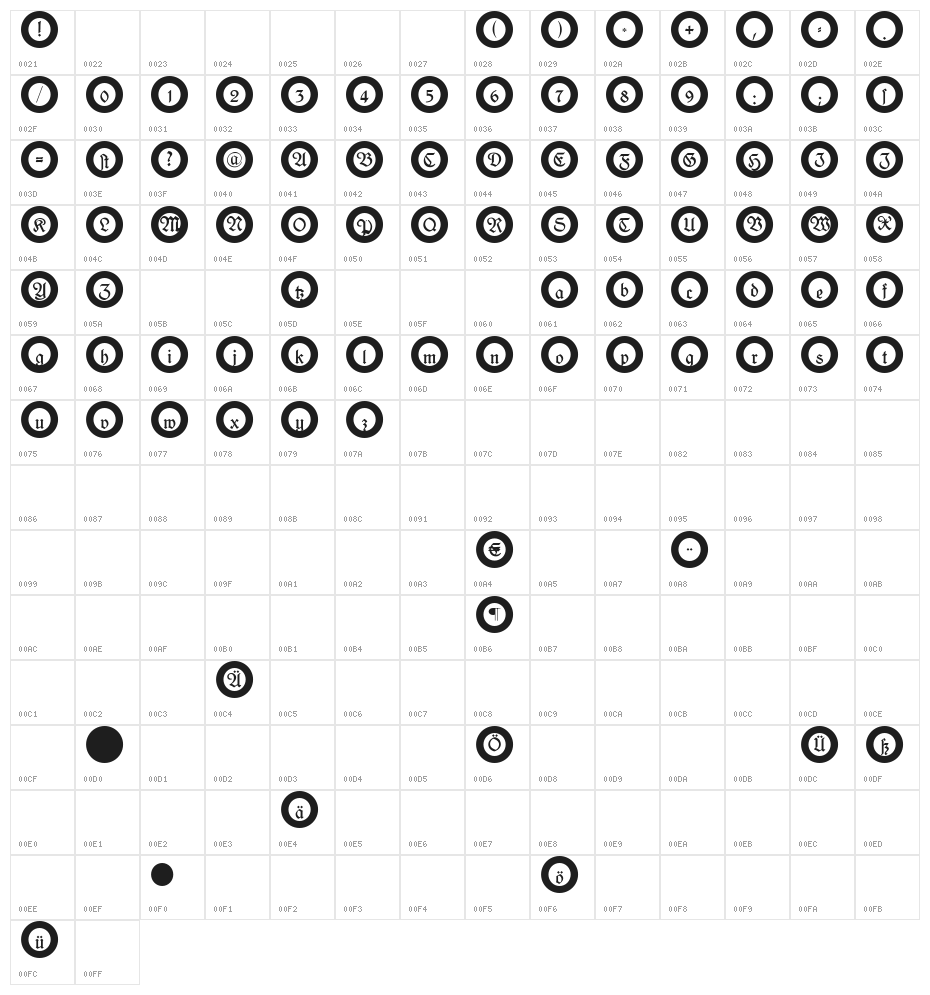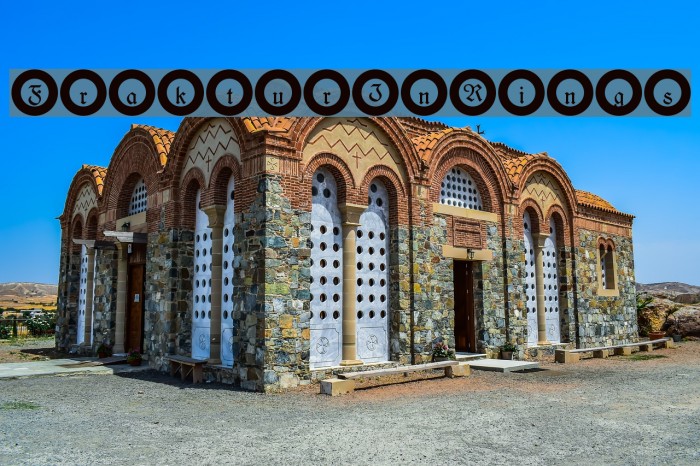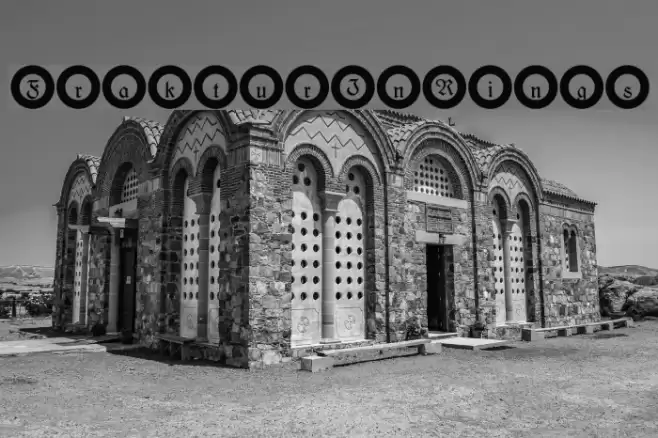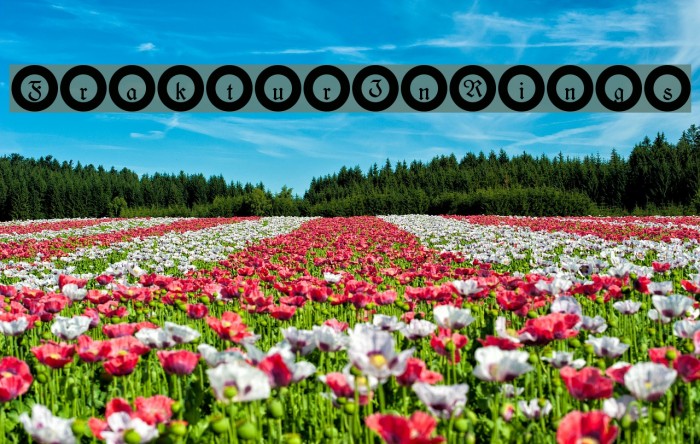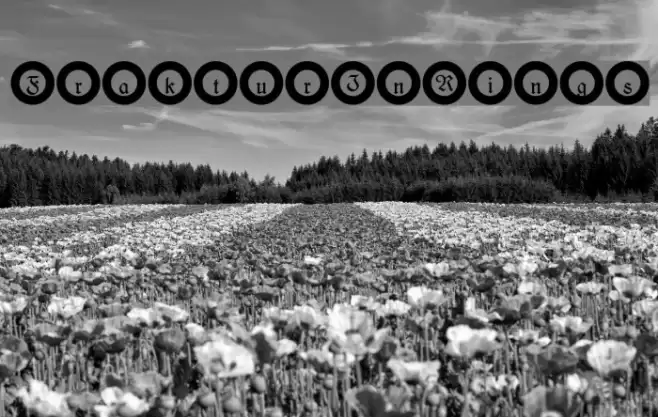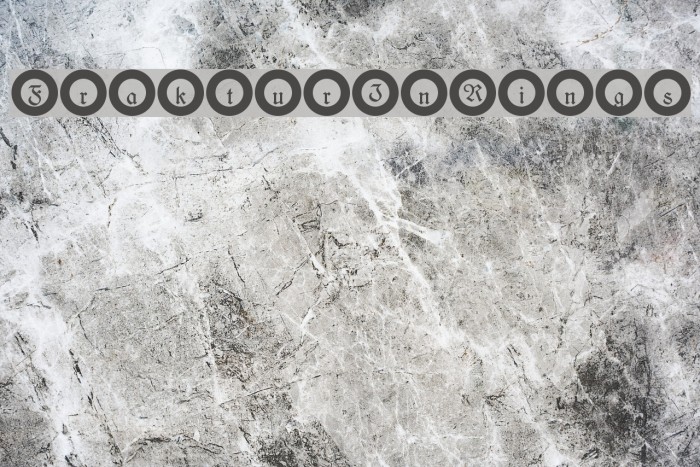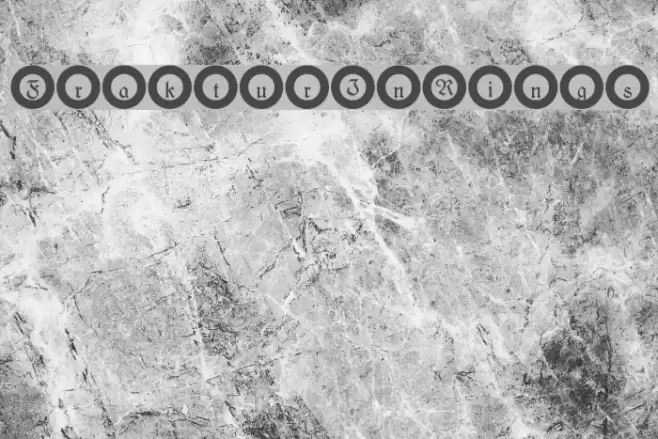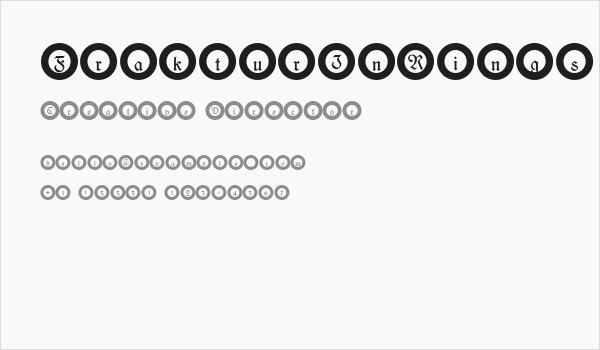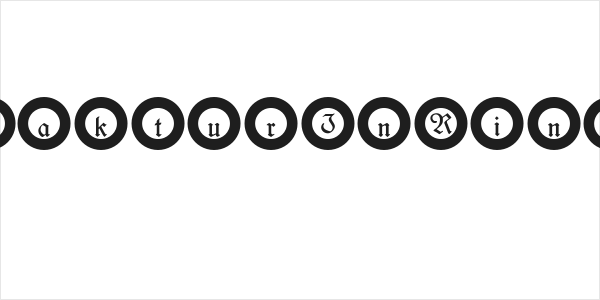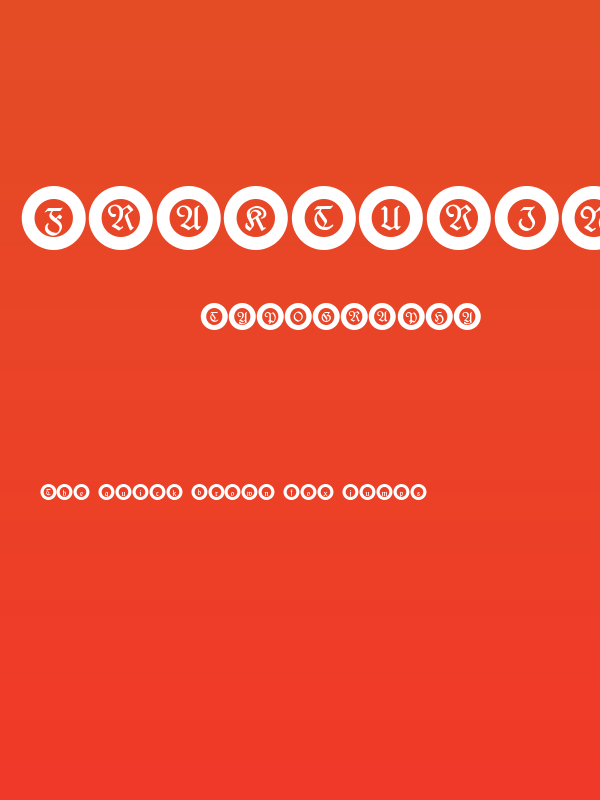
FrakturInRings Font
FrakturInRings Description
This font features a distinctive Fraktur style, characterized by its ornate and intricate letterforms. Each character is encased in a bold circular frame, adding a unique decorative element. The uppercase and lowercase letters maintain the traditional Gothic script appearance, with sharp angles and elaborate strokes. The numbers and special characters are also designed in the same style, ensuring consistency across the set. This font's high contrast between thick and thin strokes enhances its dramatic and historical feel, making it stand out in any design.
| Proposed Projects | Ideal for vintage-themed designs, historical documents, invitations, or any project requiring a Gothic aesthetic. |